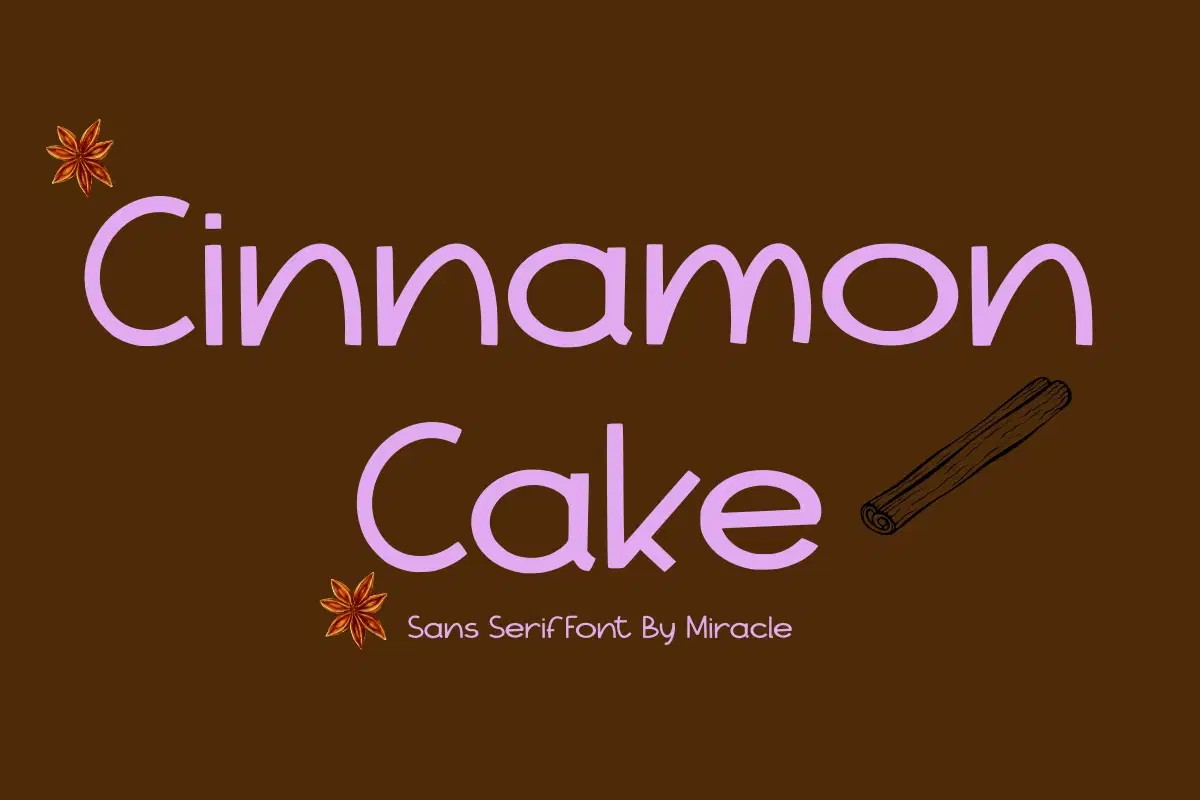
Experience the perfect blend of spice and sophistication with Cinnamon Cake, a refined sans serif font by Miracle. Featuring slender, well-balanced letterforms and a clean minimalist soul, this font is designed to bring a touch of cozy elegance to your creative projects. It is the ideal choice for designers who want to convey a sense of comfort, high-end quality, and timeless style.
Cinnamon Cake offers exceptional legibility and a smooth aesthetic, making it a versatile asset for premium branding and lifestyle designs. Whether you are working on a luxury bakery identity or a minimalist editorial layout, this font adds a "deliciously" professional finish to every word.